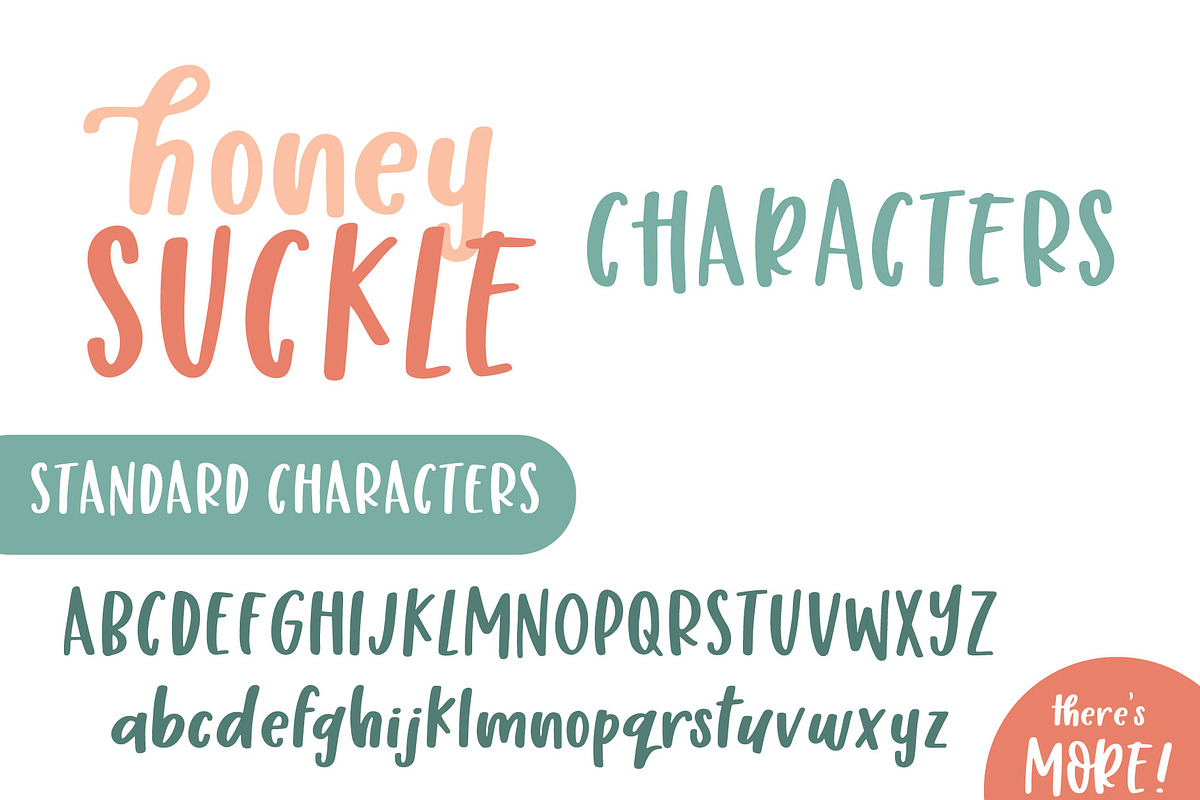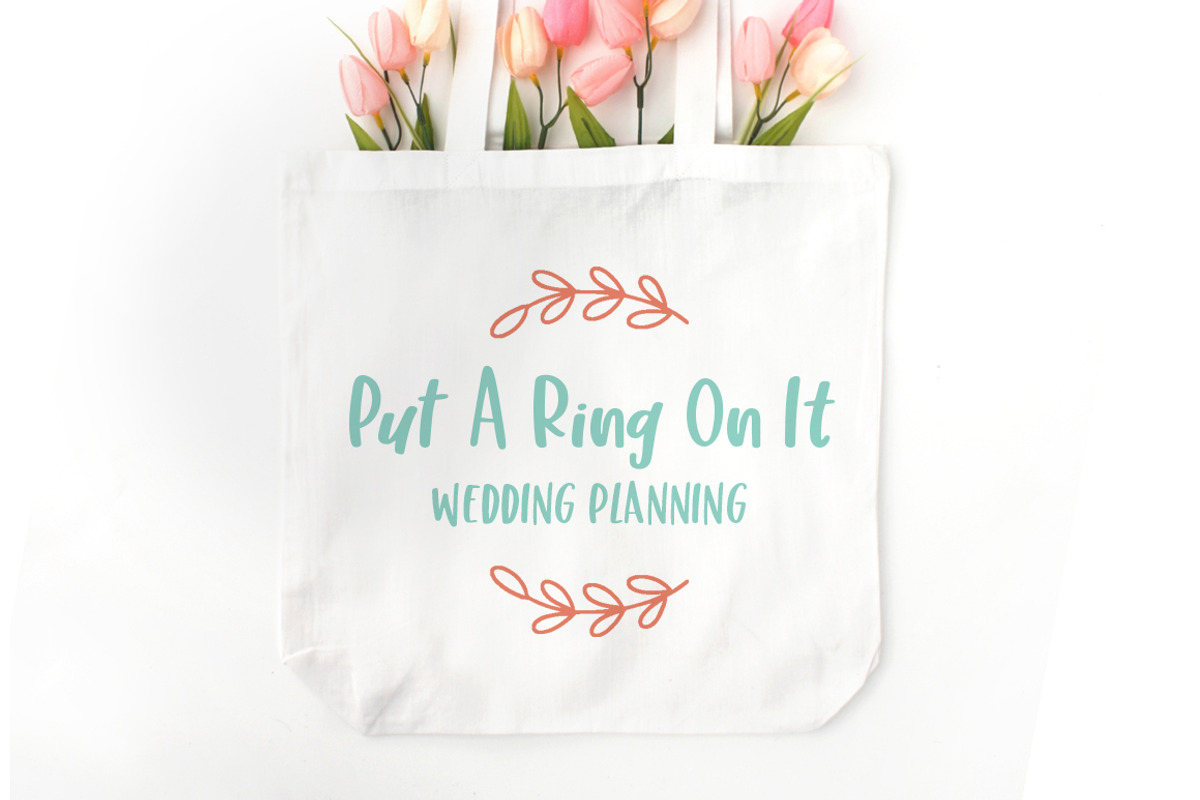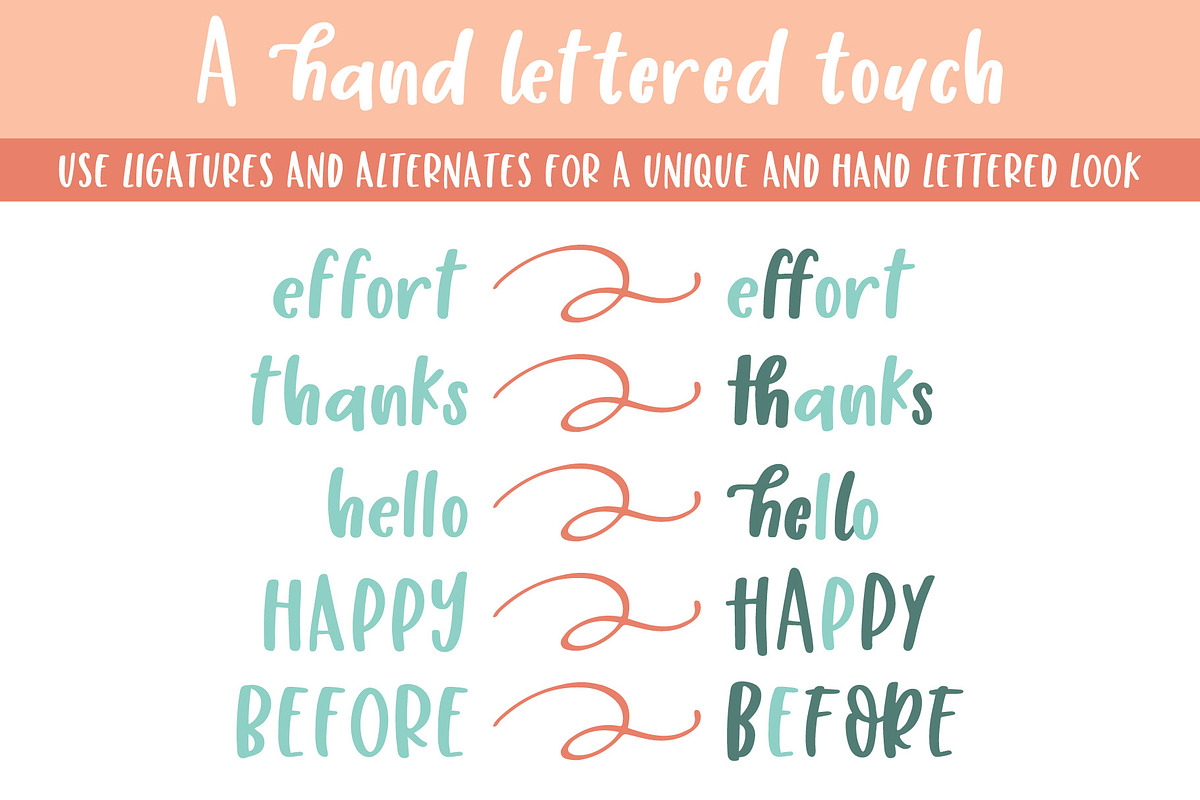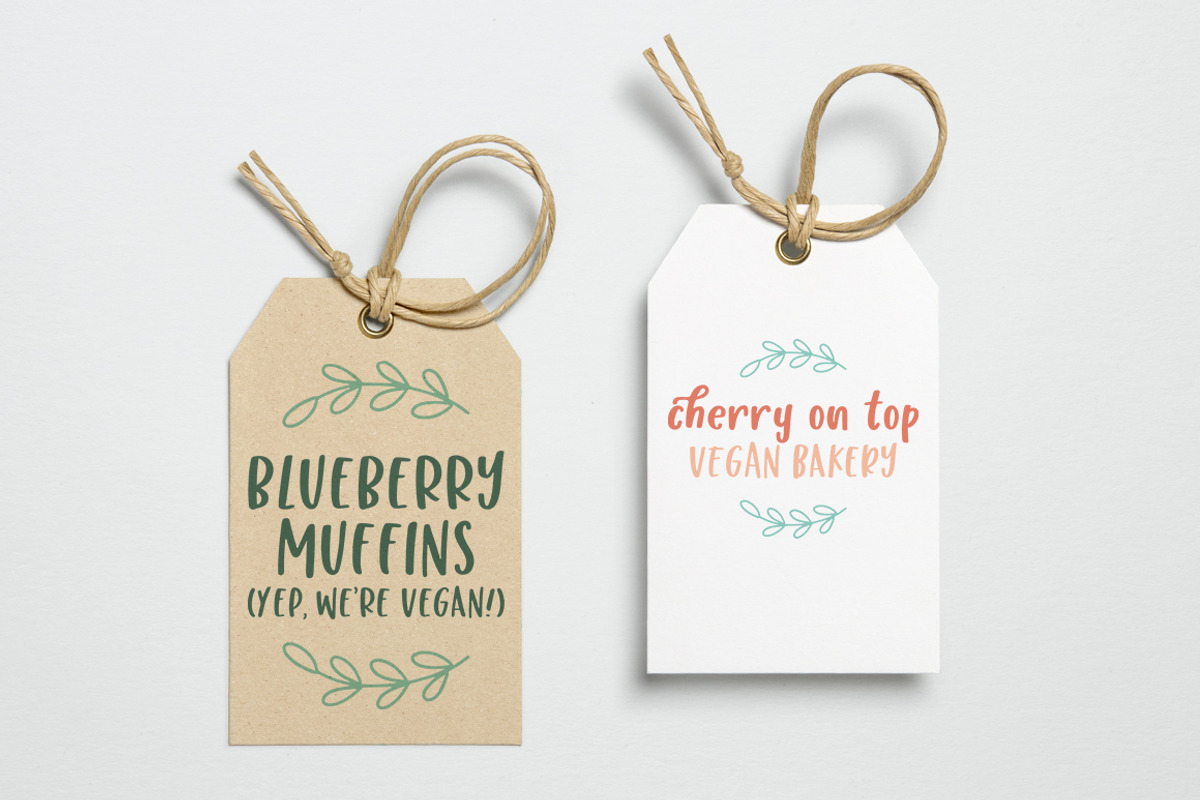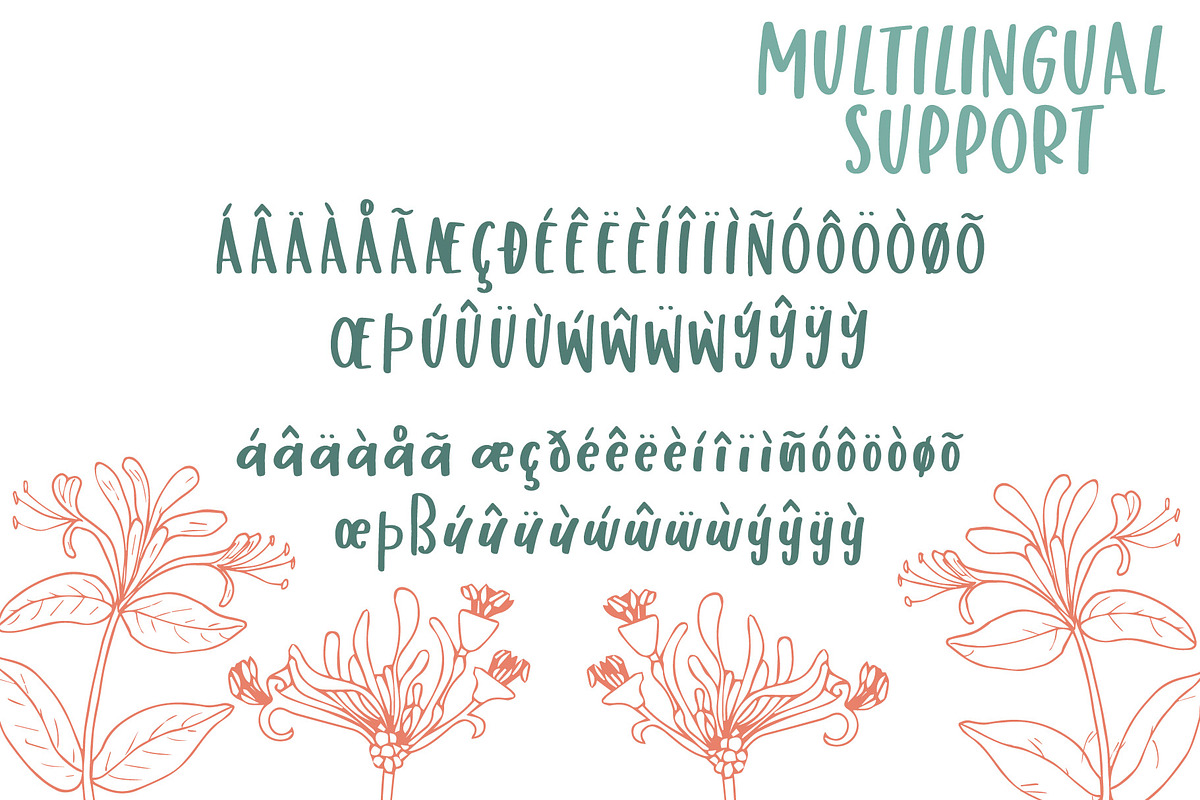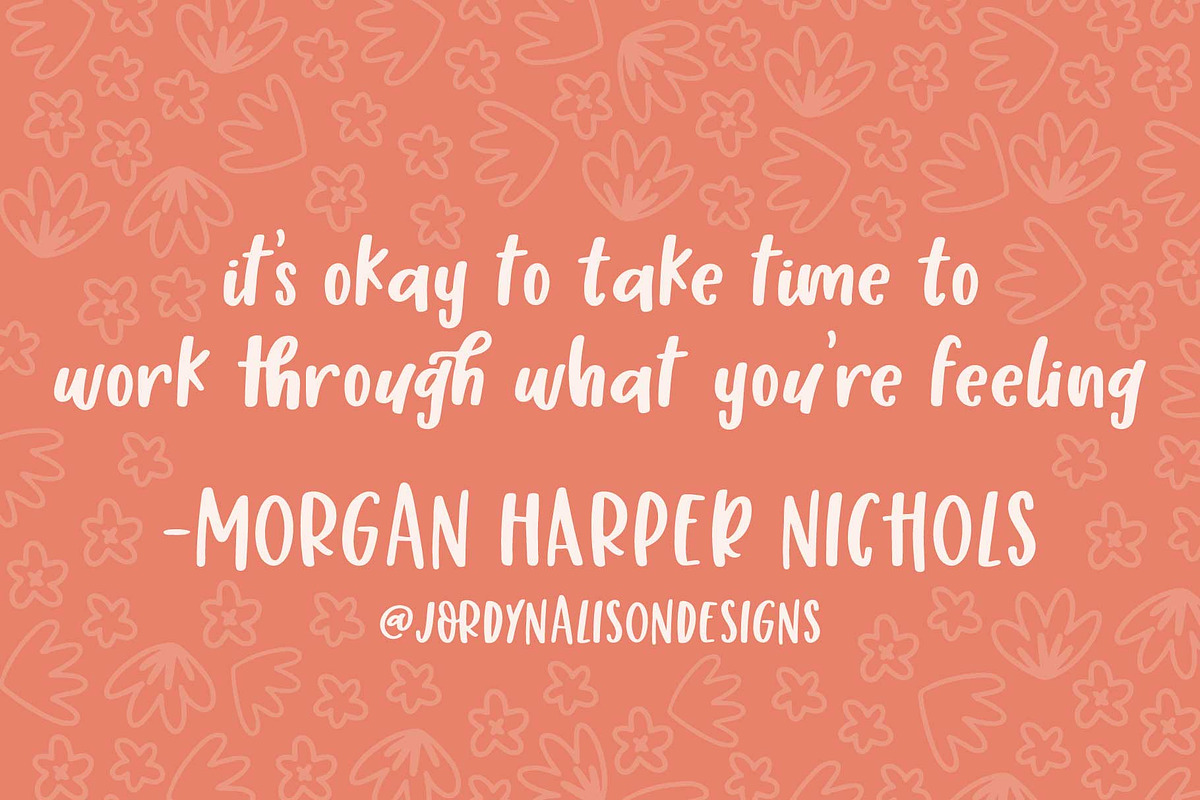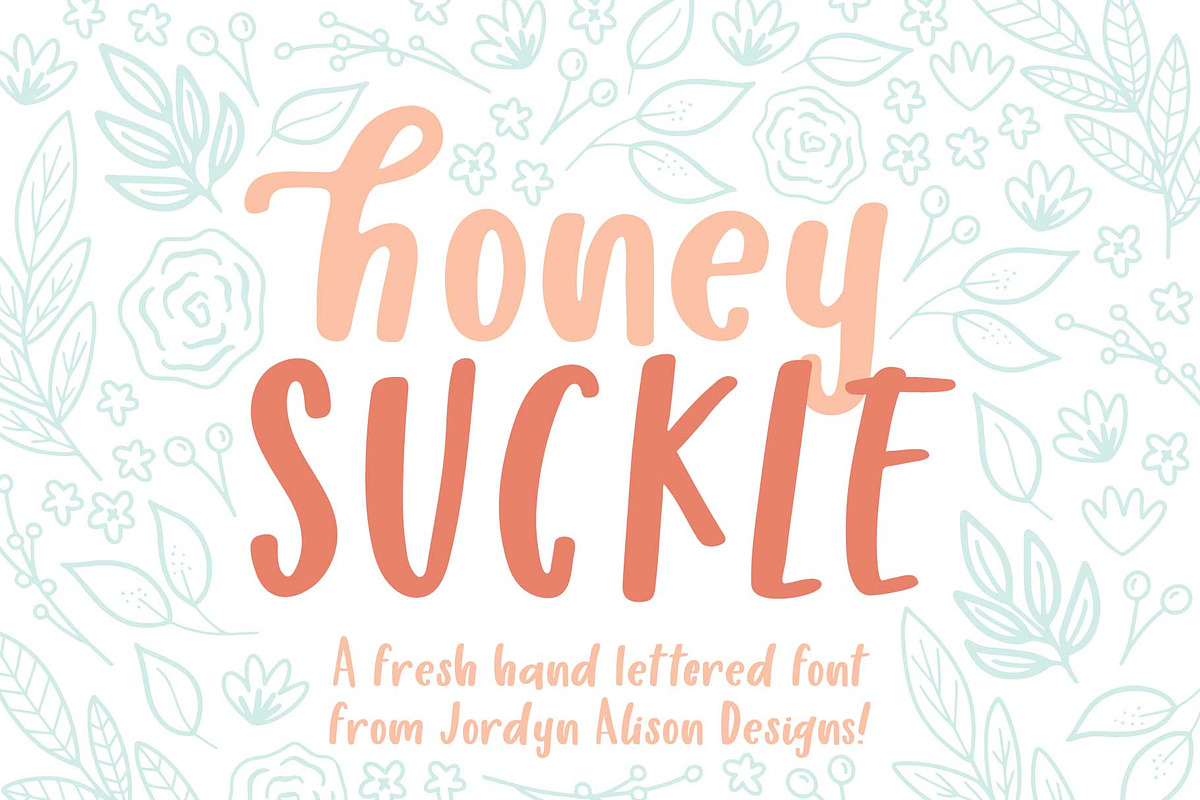
Honey Suckle Hand Lettered Font
Introducing Honey Suckle a fresh new hand lettered font. Honey Suckle comes packed with ligatures, alternates, and more. It features a fun all caps that pairs wonderfully with the lowercase sans serif font.
Honey Suckle Font Features:
Full set of lowercase letters
Full set of uppercase letters
2 Discretionary Ligatures
20 Stylistic Alternates
Multilingual support for: Afrikaans, Albanian, Asu, Basque, Bemba, Bena, Chiga, Cornish, Danish, Dutch, English, Faroese, Filipino, French, Friulian, Galician, German, Gusii, Icelandic, Indonesian, Irish, Italian, Kabuverdianu, Kalenjin, Kinyarwanda, Low German, Luo, Luxembourgish, Luyia, Machame, Makhuwa-Meetto, Makonde, Malagasy, Malay, Manx, Morisyen, North Ndebele, Norwegian Bokmål, Norwegian Nynorsk, Nyankole, Oromo, Portuguese, Romansh, Rombo, Rundi, Rwa, Samburu, Sango, Sangu, Scottish Gaelic, Sena, Shambala, Shona, Soga, Somali, Spanish, Swahili, Swedish, Swiss German, Taita, Teso, Vunjo, Welsh, Western Frisian, Zulu